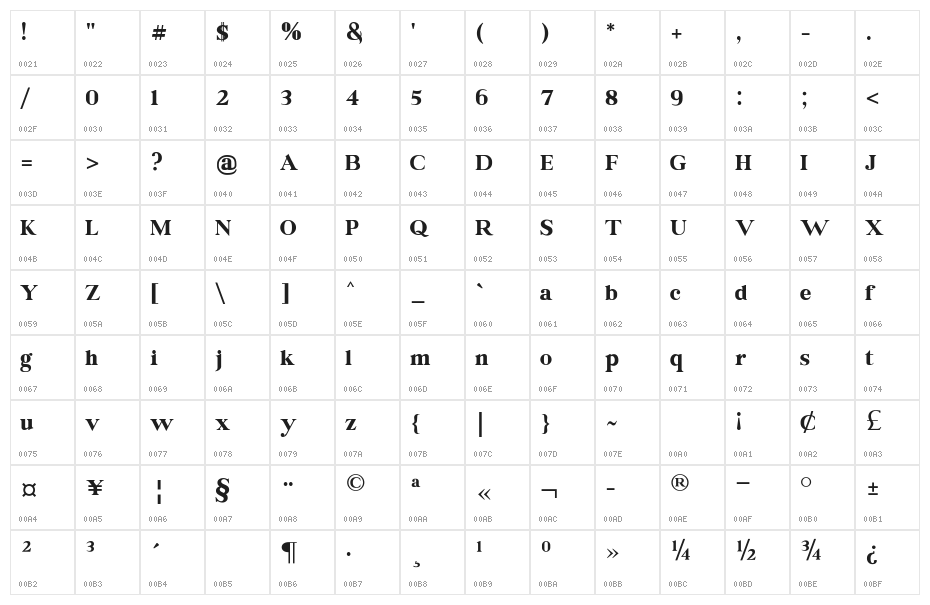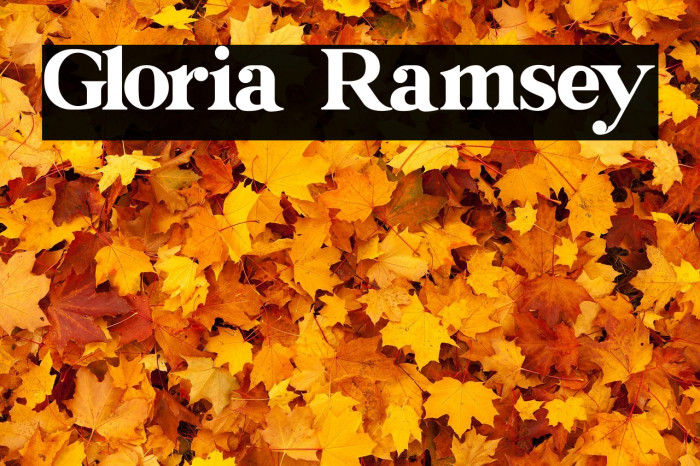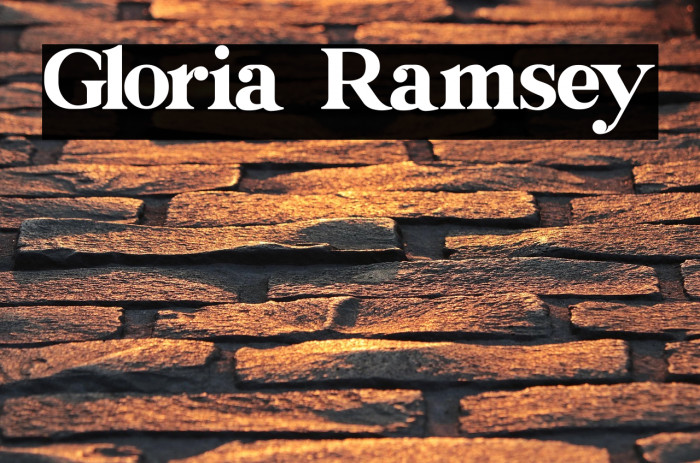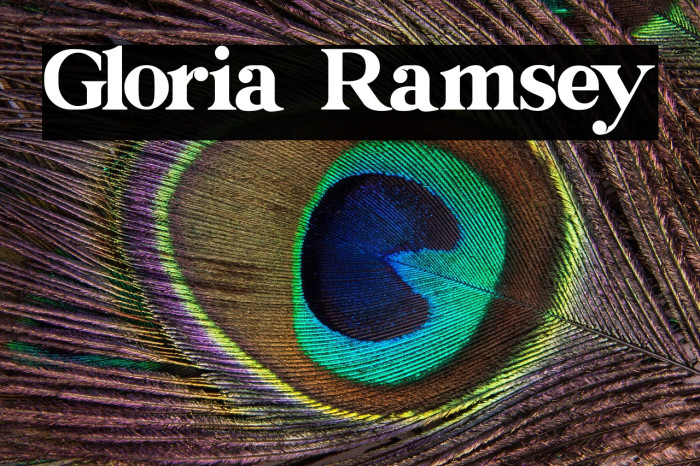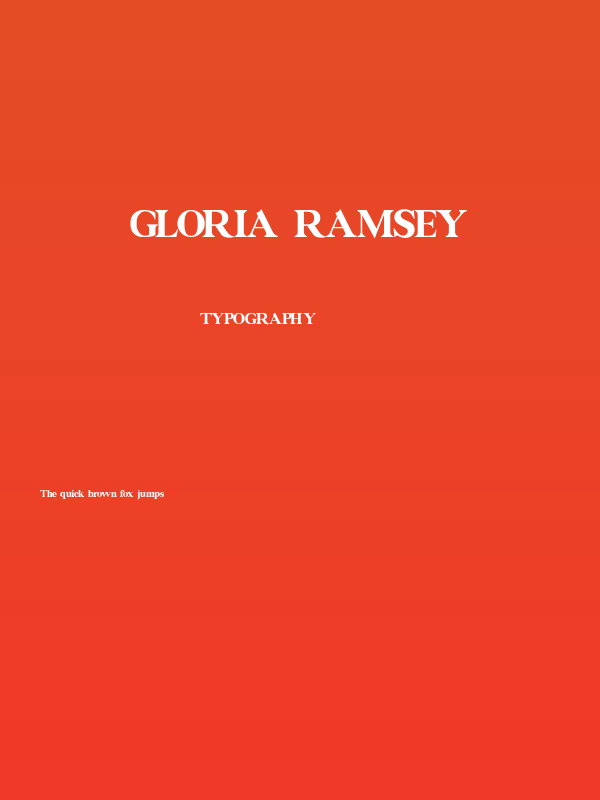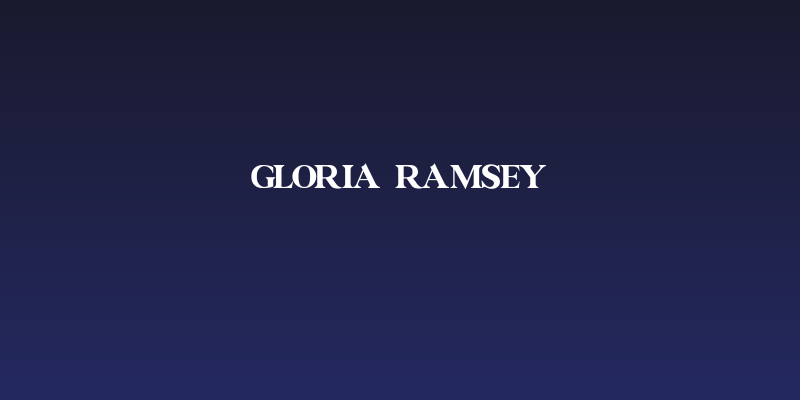
Gloria Ramsey Font
Gloria Ramsey Description
This font exhibits a classic serif style with a strong presence and high contrast between thick and thin strokes. The serifs are pronounced and add a touch of elegance, making it suitable for formal and traditional applications. The uppercase letters are bold and commanding, while the lowercase letters maintain a consistent style that complements the overall design. Numbers and special characters are designed to match the font's classic aesthetic, ensuring a cohesive look across different types of content.
Overall StyleClassic
Use CaseHeadlines, Logos, Editorial design
Proposed ProjectsIdeal for use in book covers, formal invitations, branding for luxury products, and editorial design.